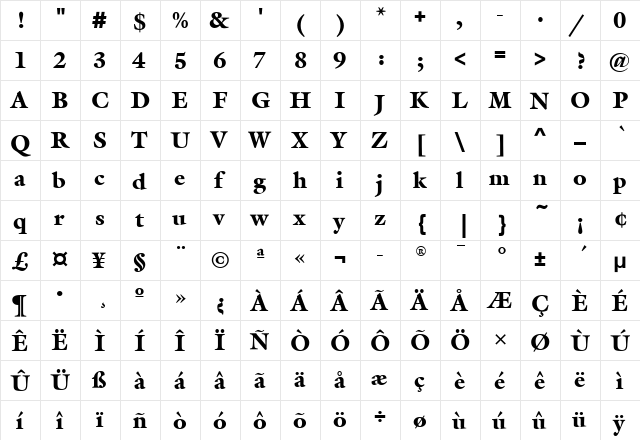
GalliardITC Black Font Preview
GalliardITC Black
GalliardITC Black Font Details
Design Context for GalliardITC Typeface
GalliardITC offers clean, dependable letterforms without strong stylistic allegiance, making it a practical choice for designers who need flexibility.
Pro Tip: Pair GalliardITC with a font of contrasting weight or personality to build a more expressive typographic hierarchy.